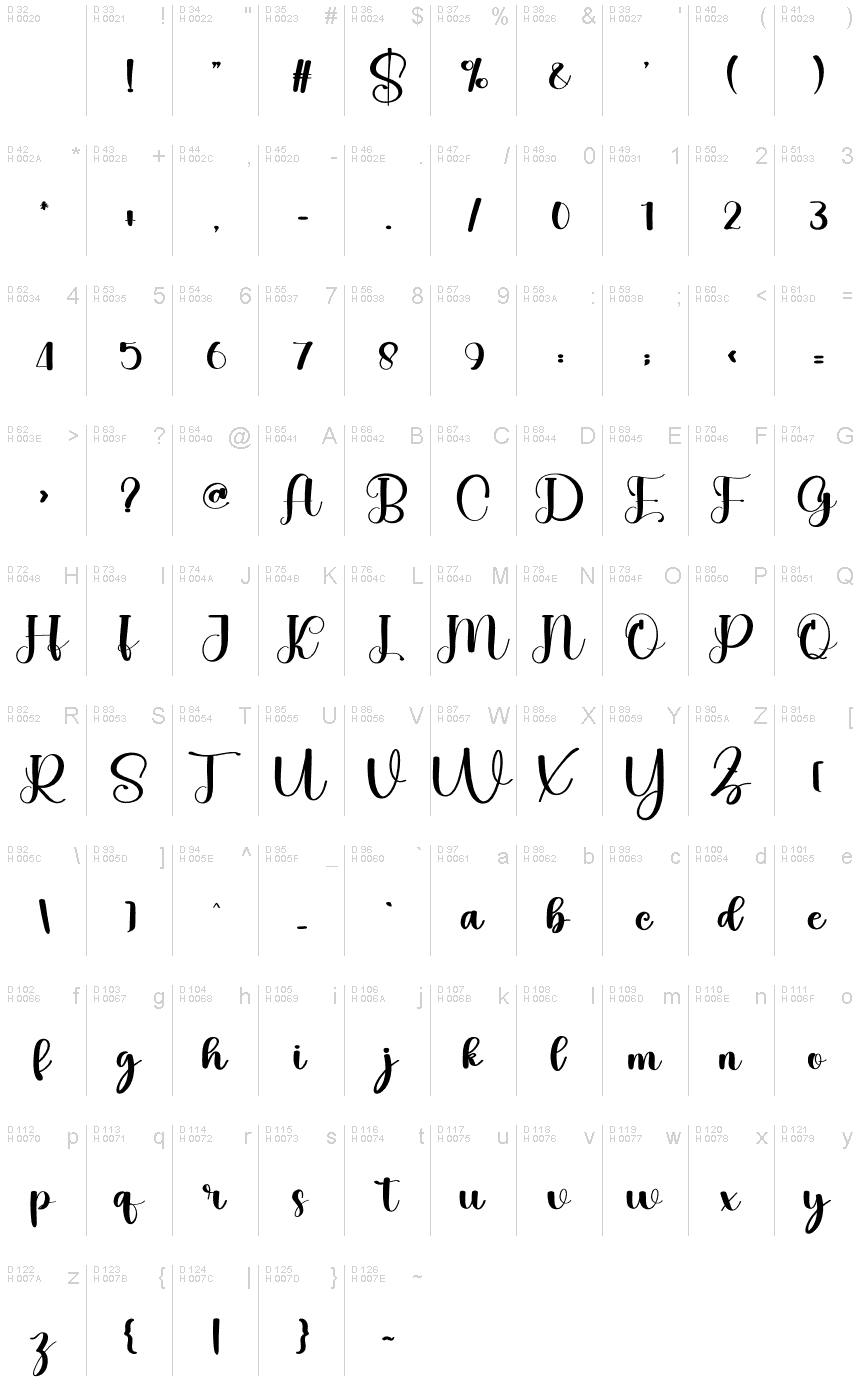
Peach
Peach, a creation from the studios of FreshtypeINK, is a font that encapsulates the fluid beauty and personal touch of calligraphy. With its sweeping curves and elegant lines, Peach exudes a softness and warmth reminiscent of handwritten letters. Each stroke carries a delicate weight, giving it an organic yet sophisticated charm.
The aesthetic appeal lies in its balance between classic calligraphy and modern design sensibilities. Its stylishly crafted characters are versatile for various creative endeavors, from wedding invitations to branding materials. The subtle playfulness of Peach makes it an ideal choice for projects that require a touch of intimacy and finesse without sacrificing professional polish.
Whether you are crafting heartfelt greetings or curating an upscale brand identity, Peach offers that bespoke feel which elevates your designs with its distinctive style and artistry.